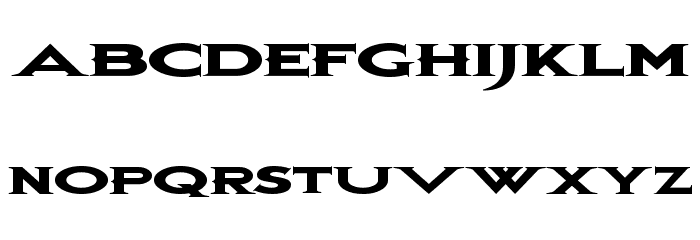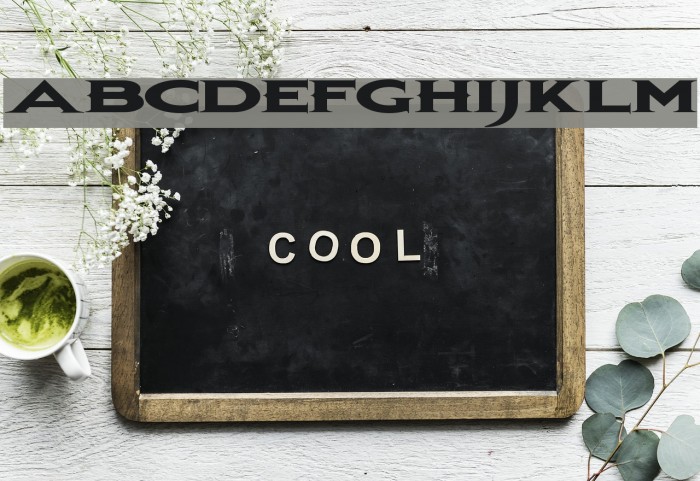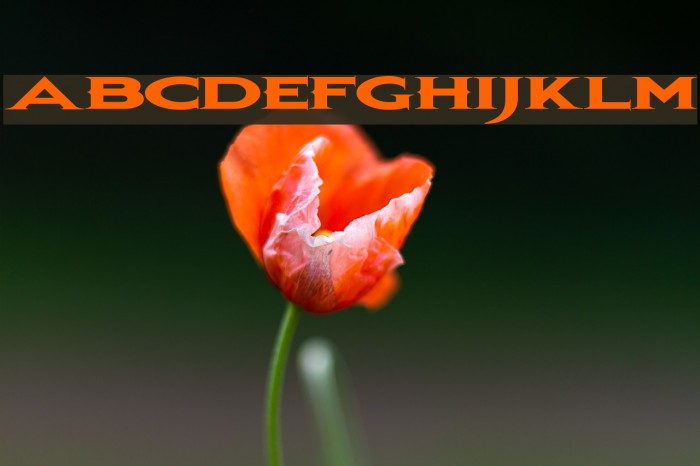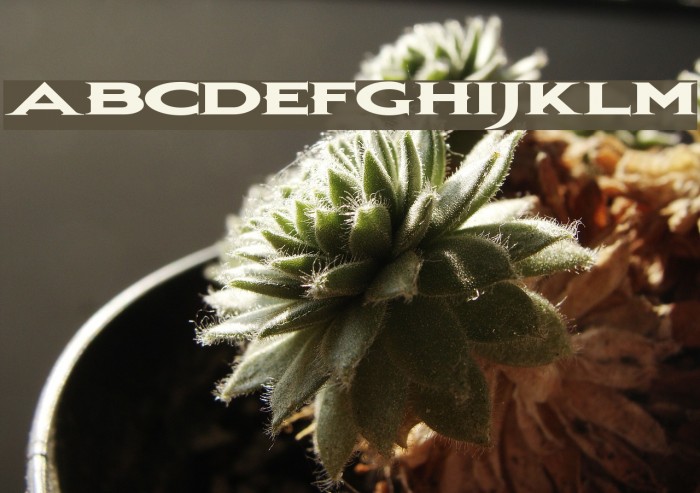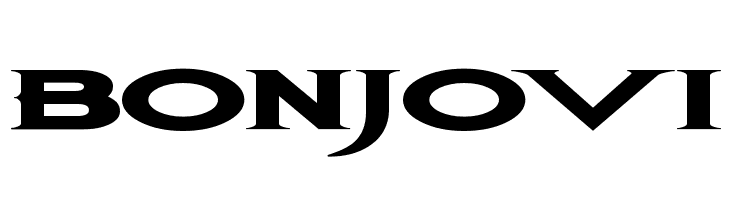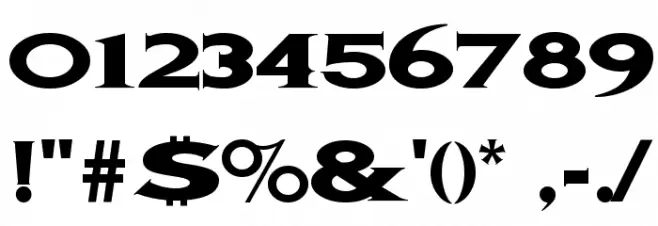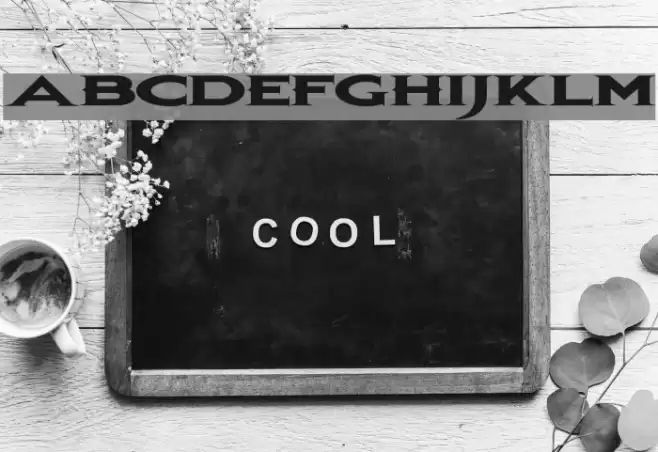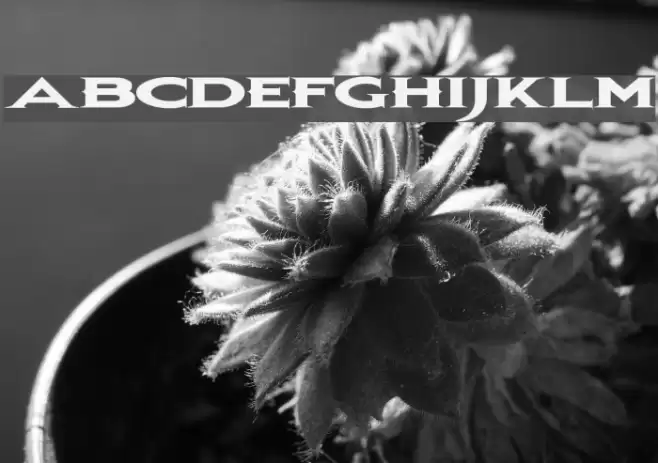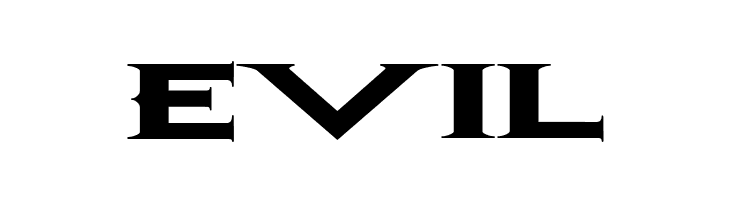
BonJovi Font
This font features a bold and dynamic style with sharp, angular serifs and a strong presence. The uppercase letters are particularly striking, with a wide stance and pronounced serifs that give them a commanding appearance. The lowercase letters maintain a consistent style, offering a cohesive look across the typeface. The numerals are equally bold, ensuring they stand out in any context. Special characters are designed to match the overall aesthetic, providing a harmonious look throughout. This font's unique style makes it ideal for attention-grabbing designs.
A bold, dynamic serif font with sharp, angular serifs and a strong presence.
- Proposed Projects: Ideal for music album covers, posters, branding, and any project requiring a bold, impactful typeface.